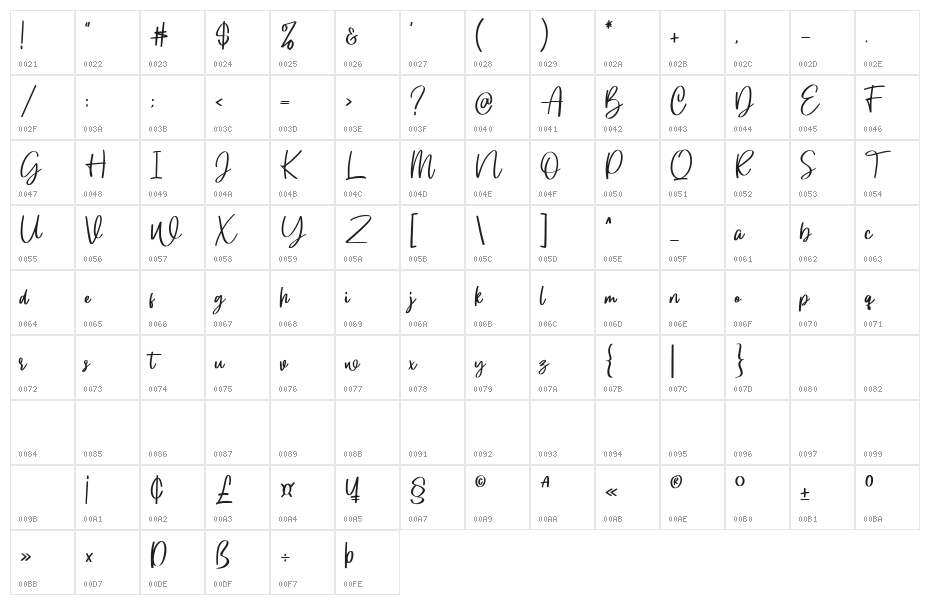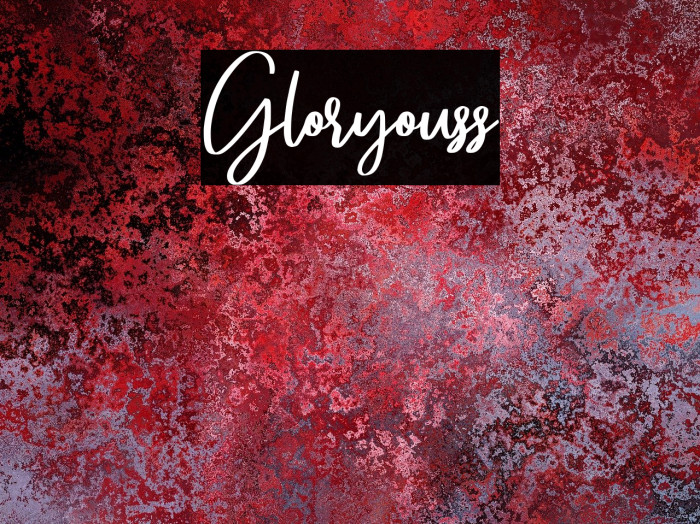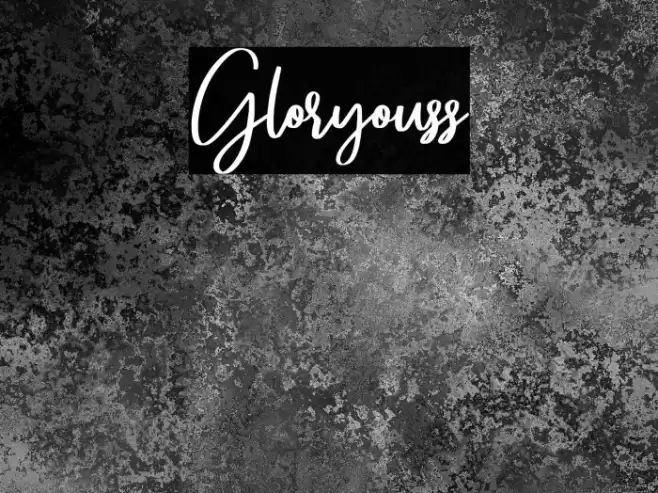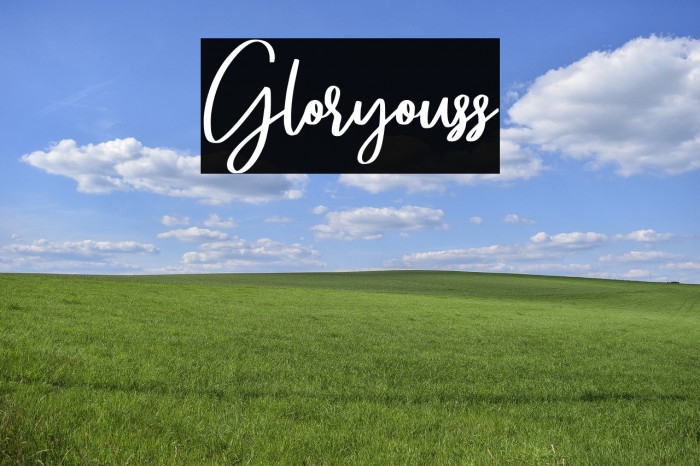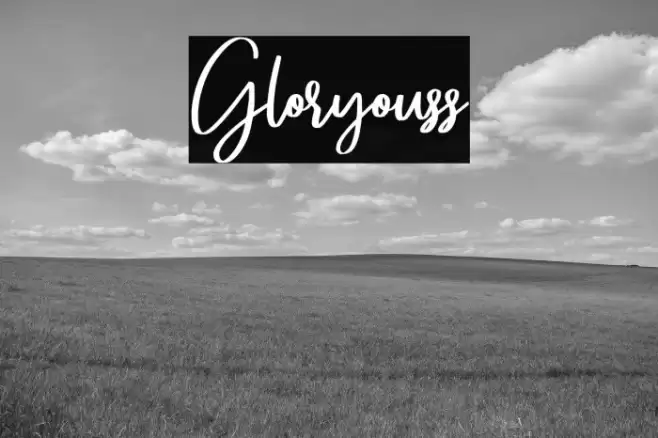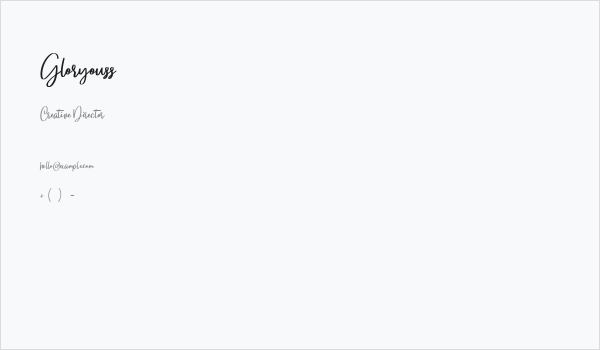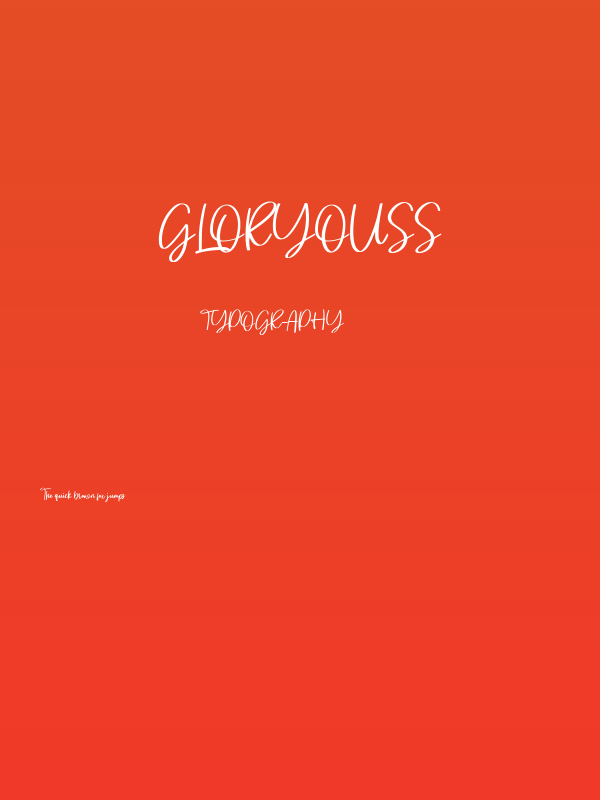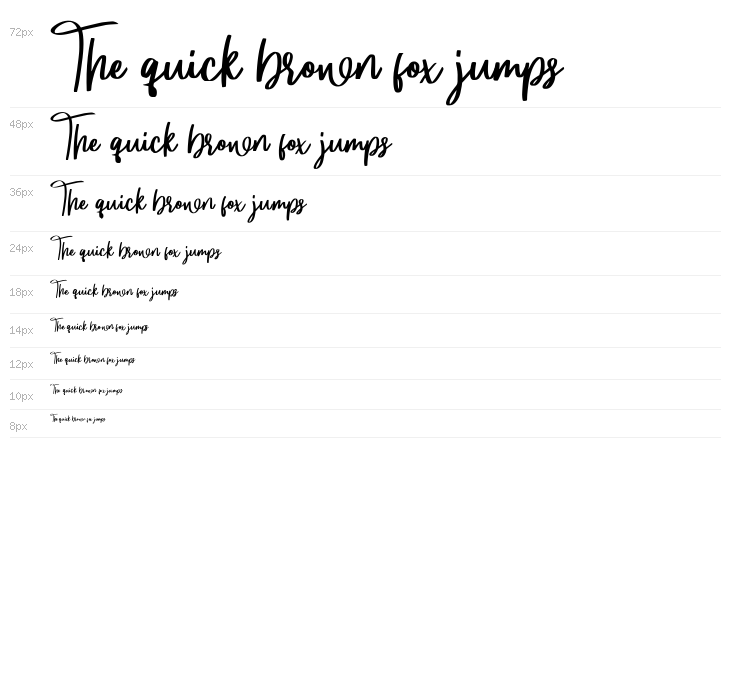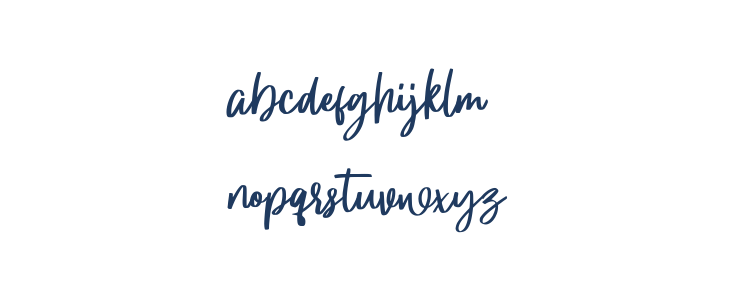
Gloryouss Font
Gloryouss Description
This font features a lively and expressive handwritten style, characterized by its fluid and dynamic strokes. The uppercase letters are tall and slightly slanted, giving a sense of movement and energy. The lowercase letters maintain a consistent flow, with smooth curves and a casual elegance. The numerals and special characters complement the overall design, adding to its playful yet sophisticated appearance. This font is perfect for projects that require a personal touch, such as invitations, greeting cards, and branding materials. Its unique style makes it stand out while remaining legible and versatile.
| Proposed Projects | Ideal for invitations, greeting cards, branding, and personal projects. |